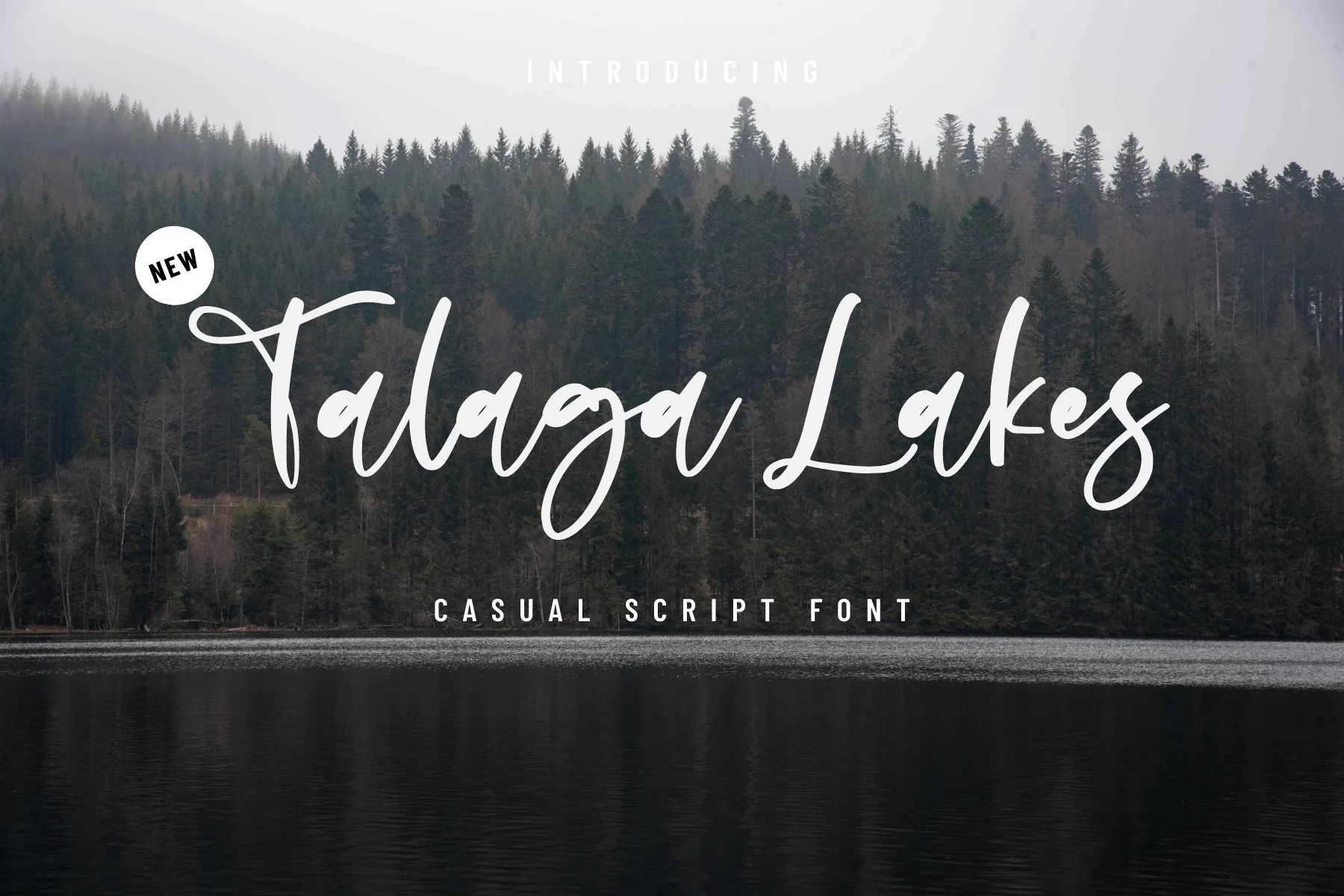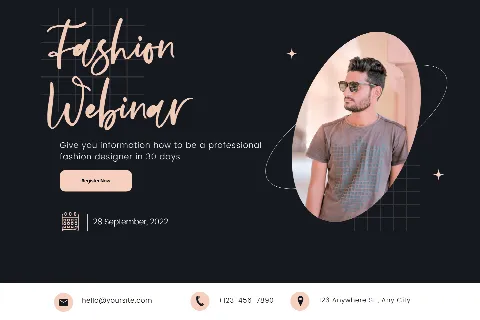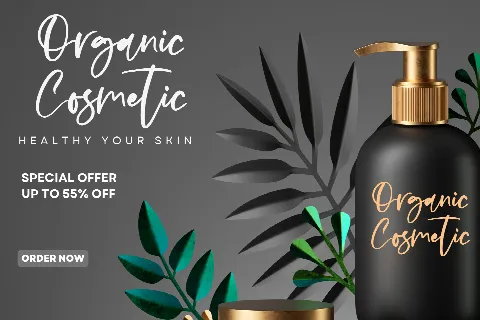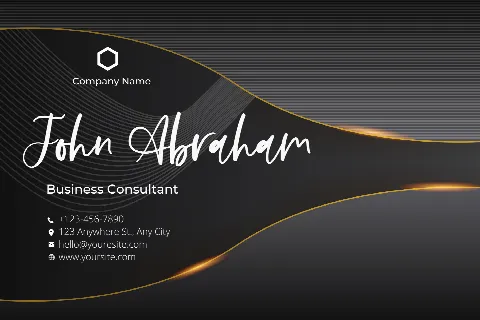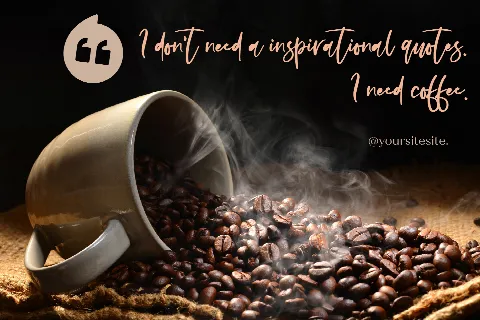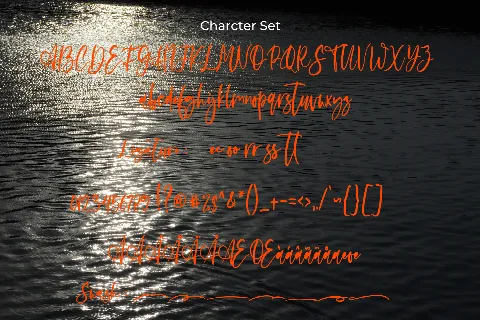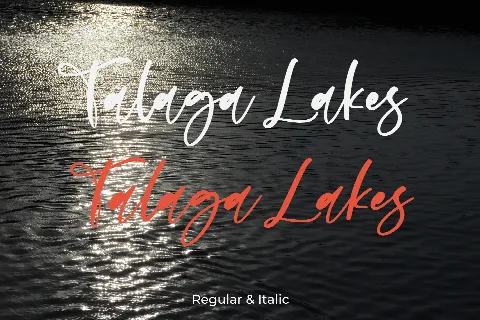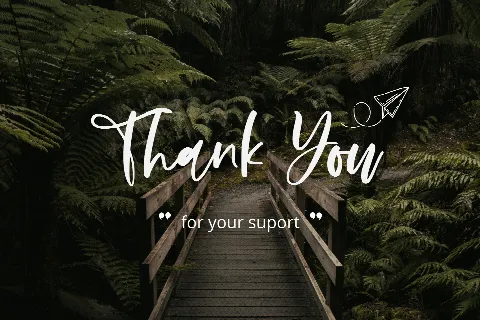
Talaga Lakes
Introducing
Talaga Lakes Font
Talaga Lakes is a casual script font. Its casual charm makes it appear wonderfully, readable, and, ultimately, incredibly versatile. This font will look outstanding in any context, whether it’s being used on busy backgrounds or as a standalone headline!